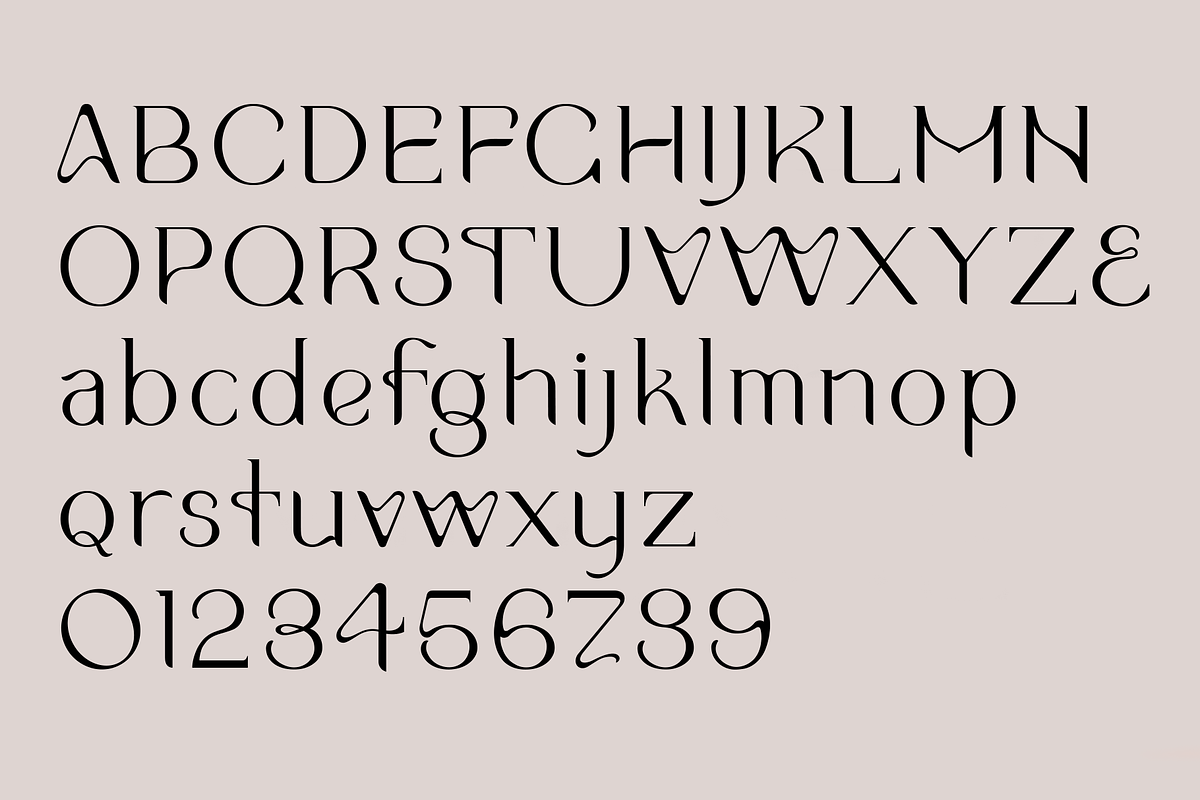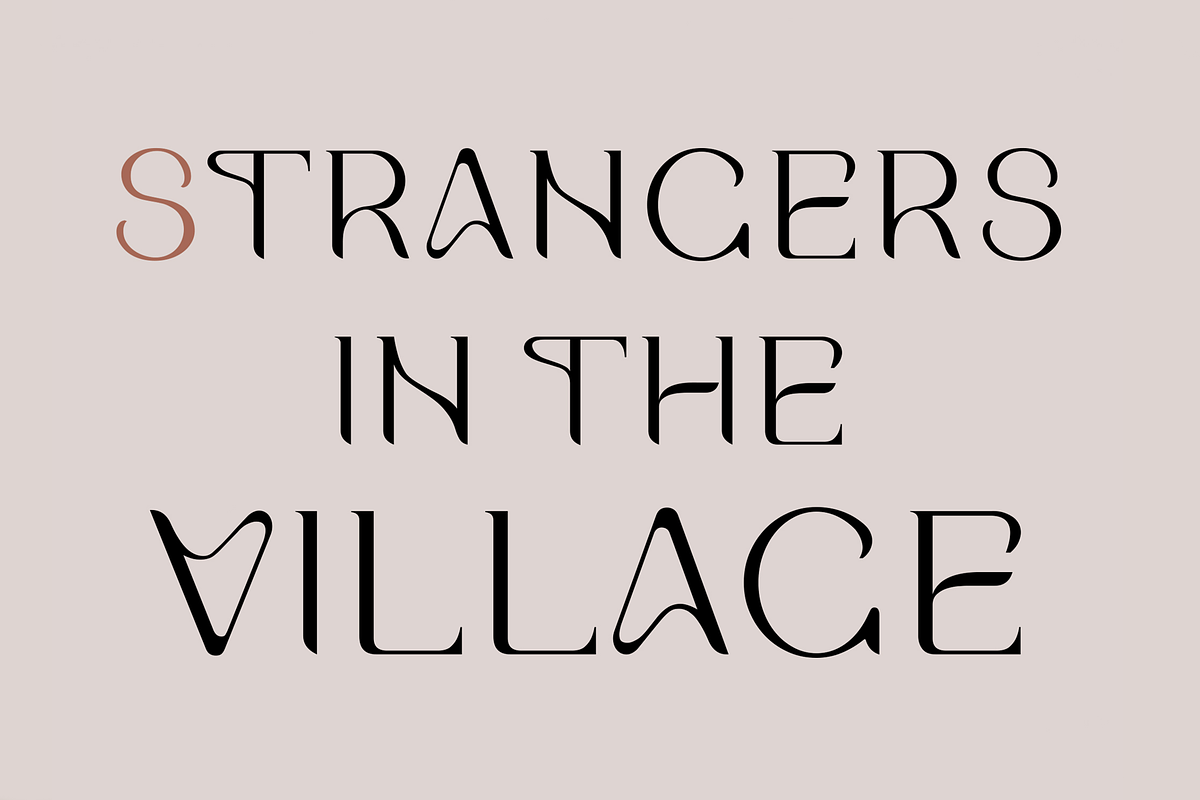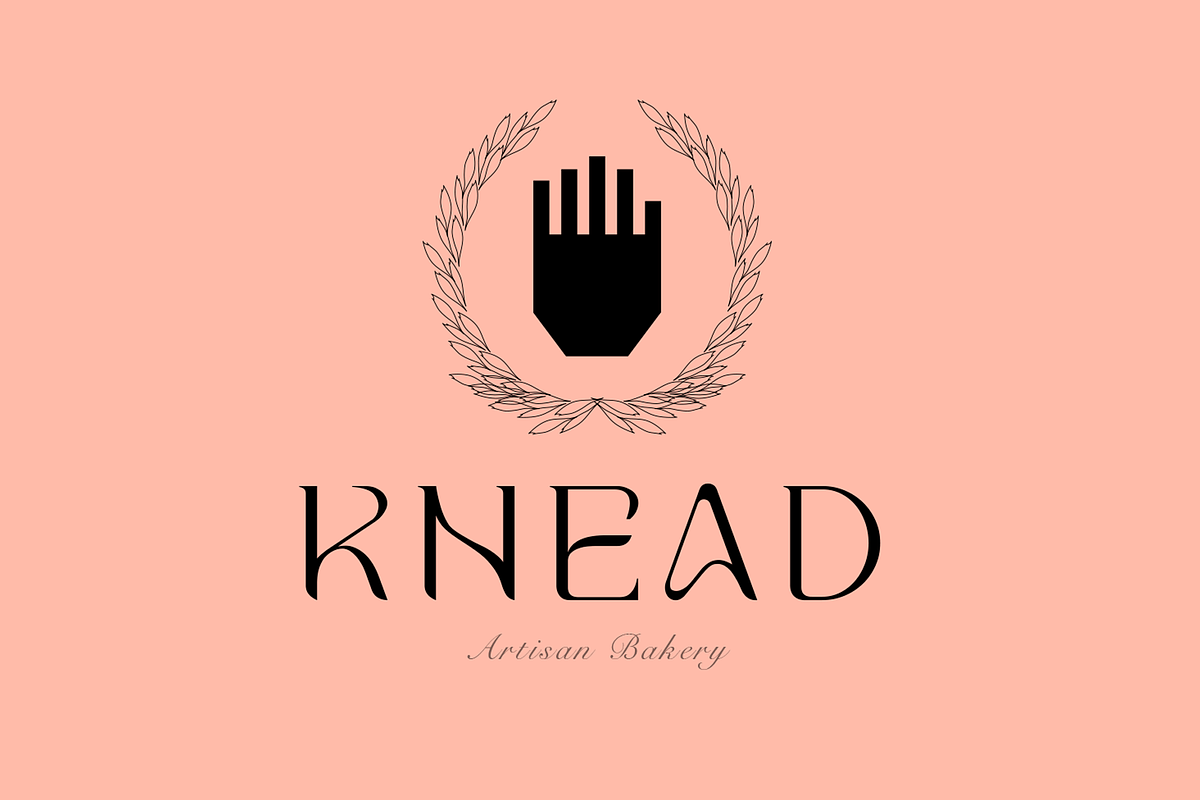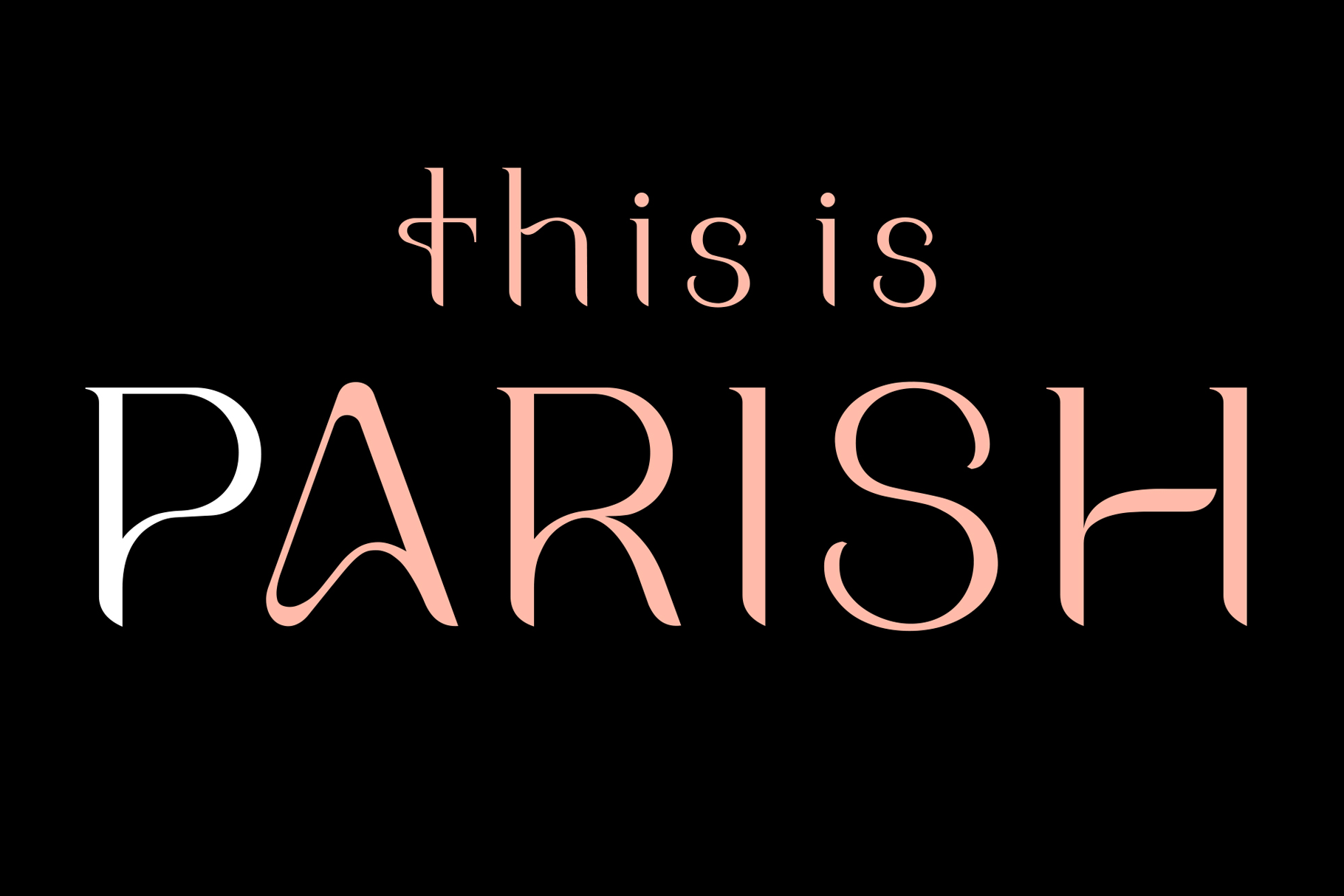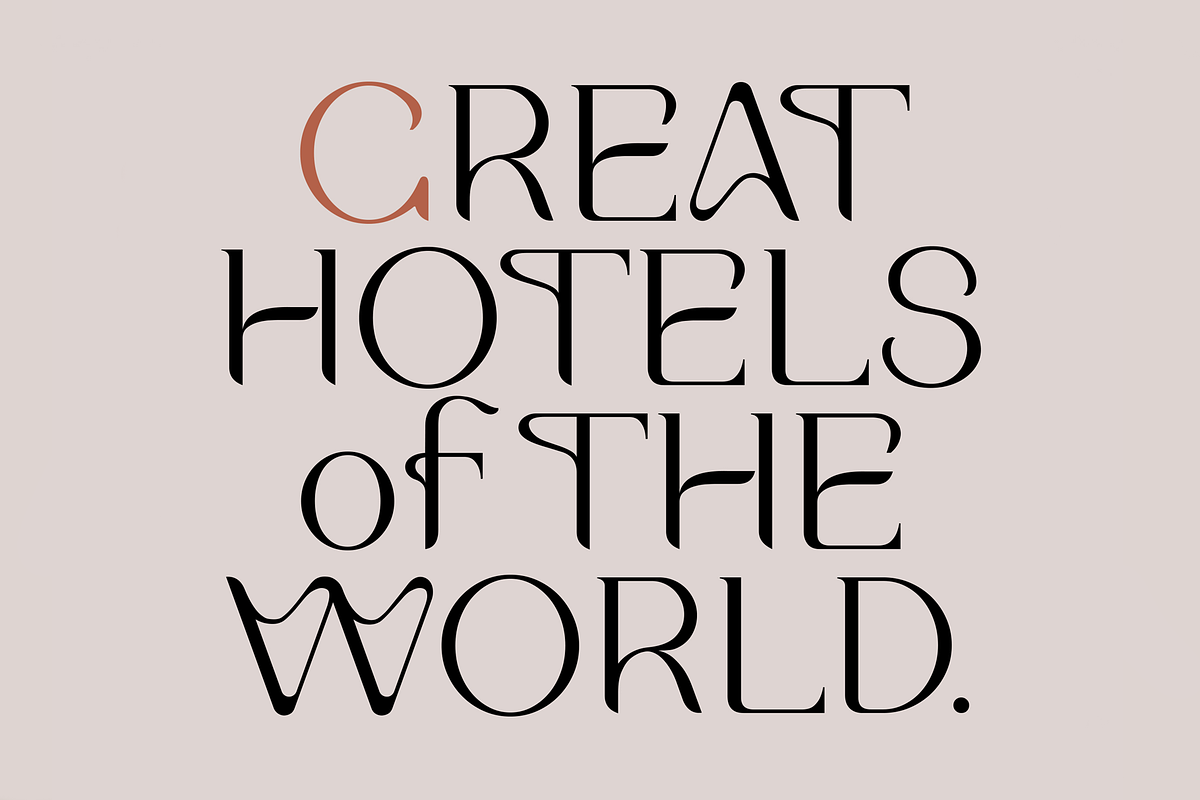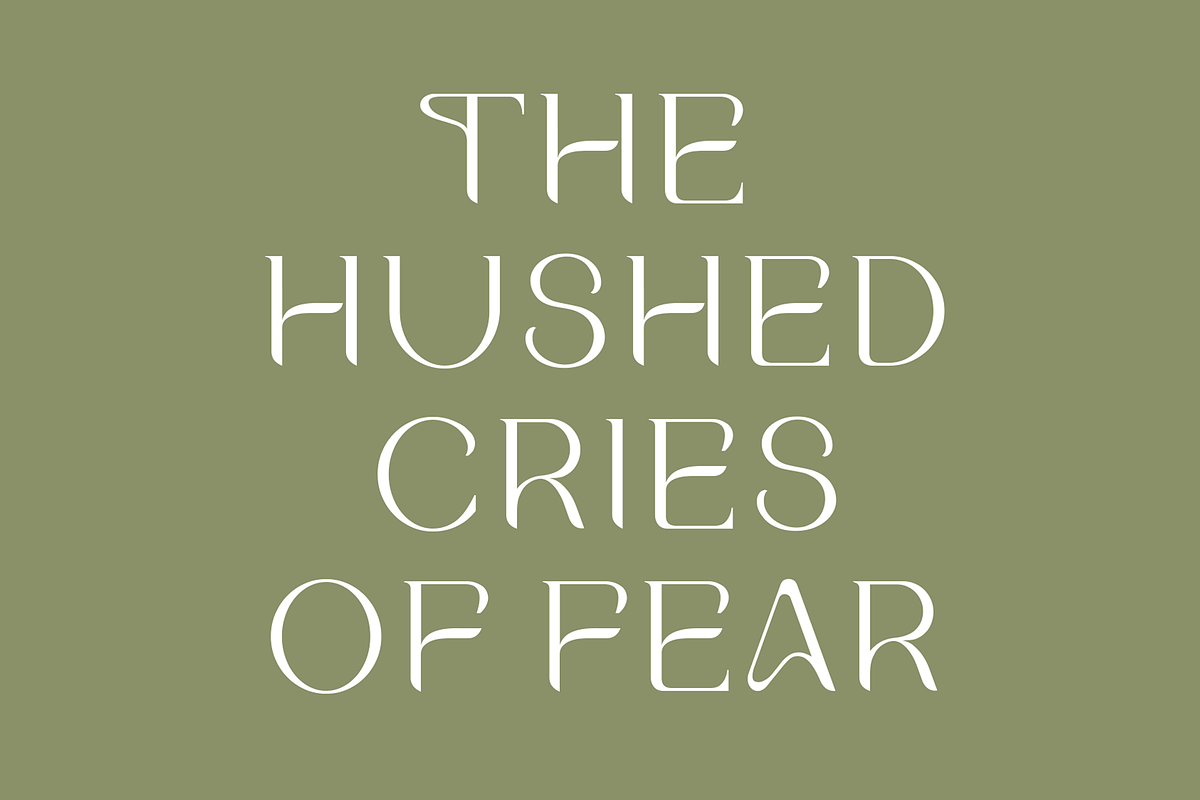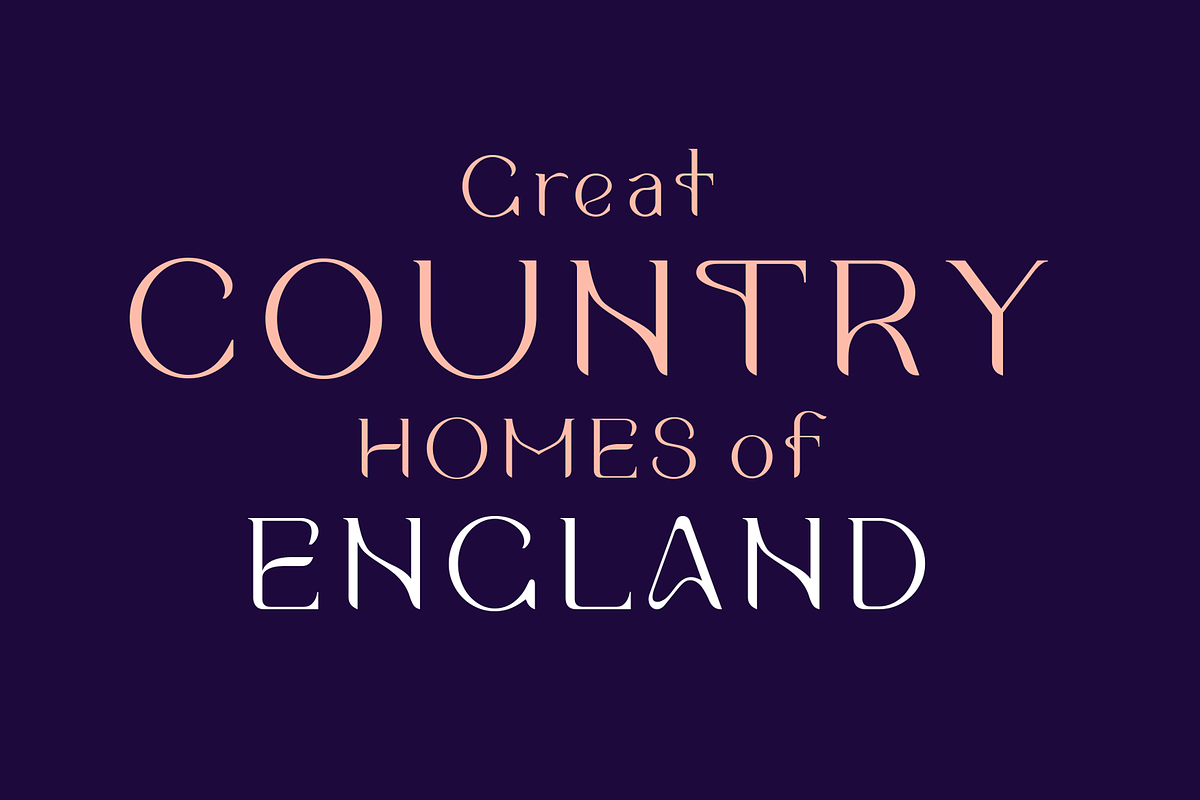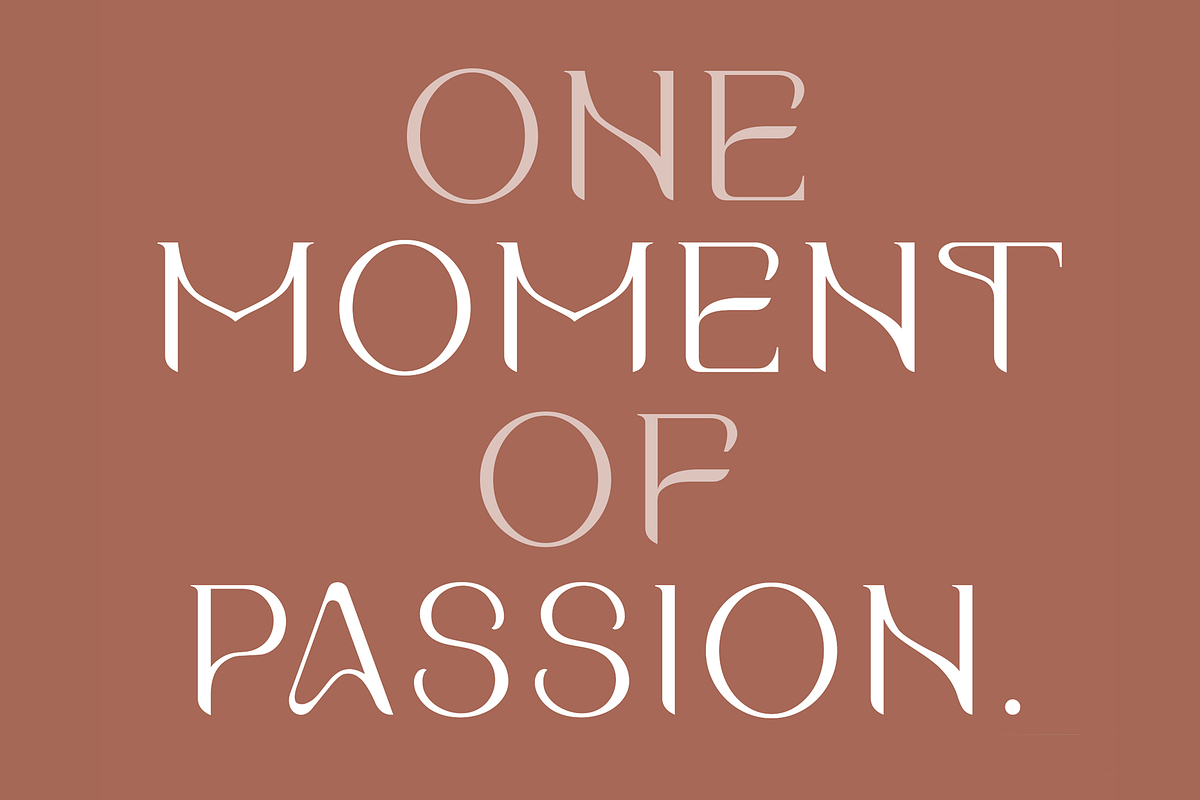
Parish. Stylish serif font
Parish is a distinctive and expressive new font for designers from LostandFoundry.
This typeface is my homage to Agatha Christie and her famous novels of mystery, passion and intrigue that would play out in the villages of England.
This font is yet another of my serif fonts that has a unique identity, being both classic, yet modern, which is my attitude in designing serif fonts. Parish comes in 2 weights and supports French, German and other European languages.